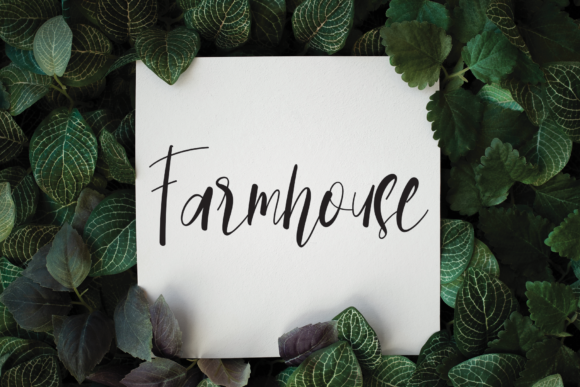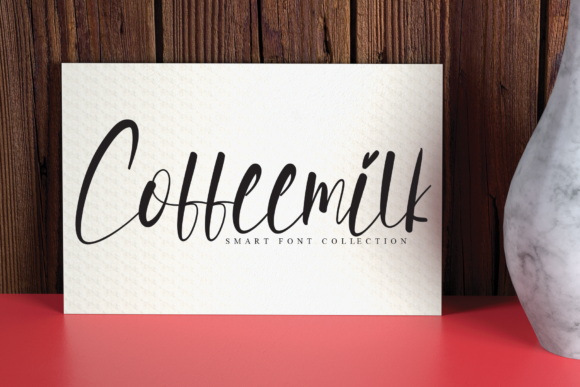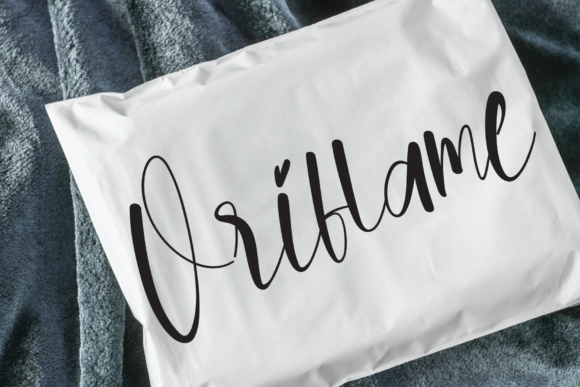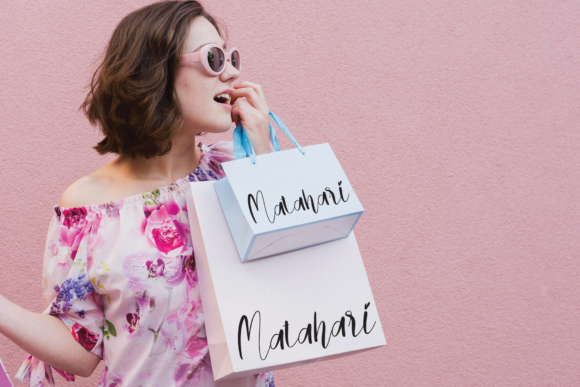
Paradise Font
About Paradise Font
Paradise is a romantic handwritten font with elegant characters and a modern vibe! Add this gorgeous typeface to any creation that needs a minimalistic and original look!